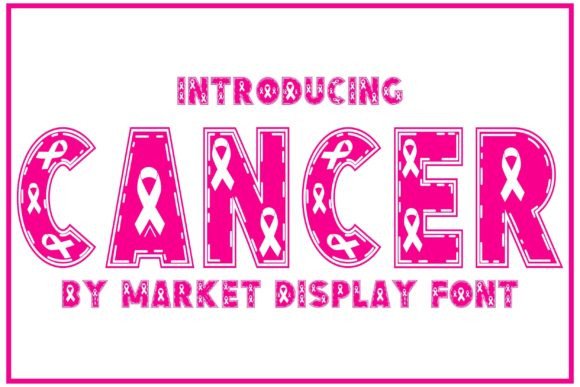
The Power of Typography: Discovering the Cancer Font
I’ll never forget the moment I was working on a breast cancer awareness project, determined to create something that would inspire and support those affected by the disease. As I scrolled through font after font, I just couldn’t find the right one. That was until I stumbled upon the Cancer Font – a game-changer for any designer, crafter, or creative hobbyist looking to make a statement.
A Font that Speaks from the Heart
Cancer Font is a thick-lettered and unique decorative font that immediately caught my attention. Its bold and eye-catching design makes it perfectly suitable for any breast cancer awareness-related project or crafty idea. Whether you’re creating a poster, a social media graphic, or a handmade card, this font is sure to make your message stand out.
- ✨ Unique and eye-catching design that’s perfect for breast cancer awareness projects
- ✅ Thick and bold letters that make a statement
- 💖 Emotionally resonant and supportive of a great cause
While Cancer Font is an amazing addition to any project, there are a few things to keep in mind. ⚠️ Some users have reported that the font can be a bit tricky to read at smaller sizes, so it’s best to use it for headlines or titles rather than body text. Additionally, 🤔 the font’s bold design may not be suitable for every project or audience.
The Story Behind Cancer Font
Cancer Font was designed with a specific purpose in mind: to create a bold and eye-catching font that would help raise awareness for breast cancer. The designer, inspired by the strength and resilience of those affected by the disease, created a font that would make a statement and inspire others to take action.
| What is Cancer Font? | Cancer Font is a thick-lettered and unique decorative font that’s perfect for breast cancer awareness-related projects or crafty ideas. |